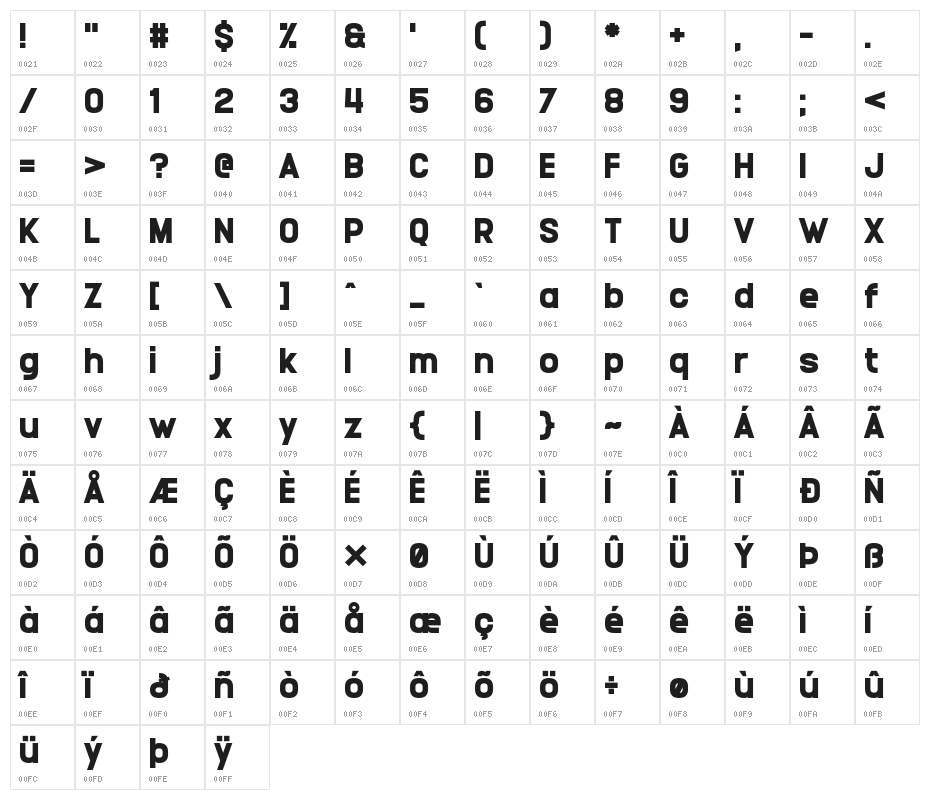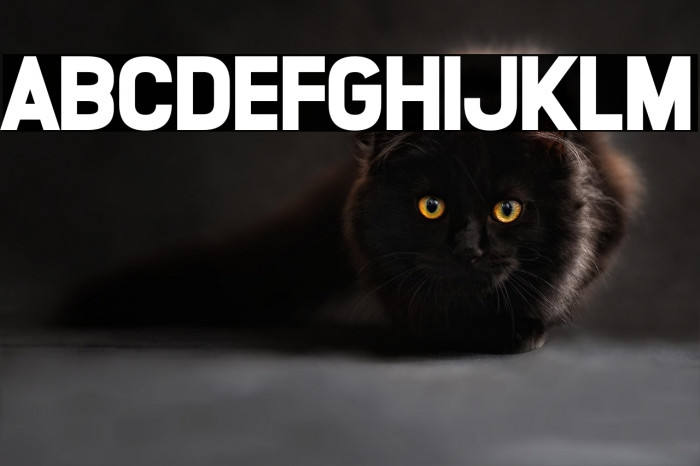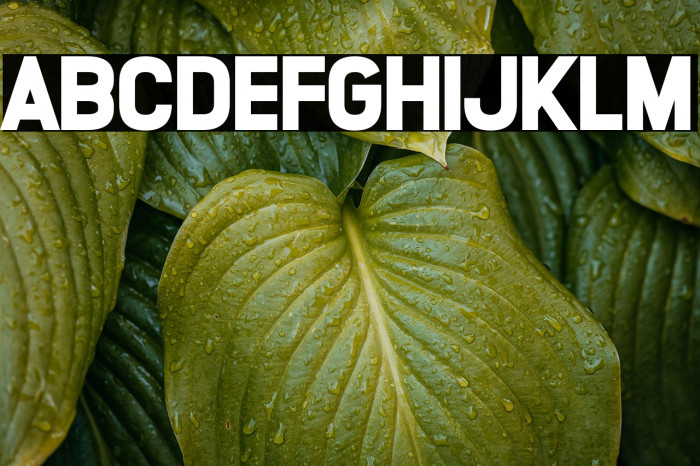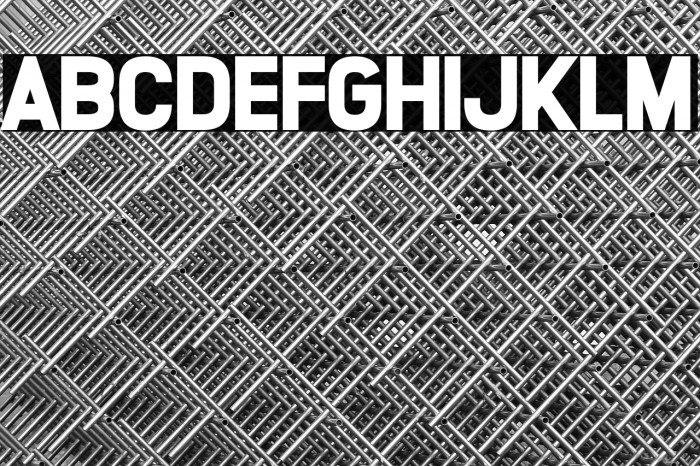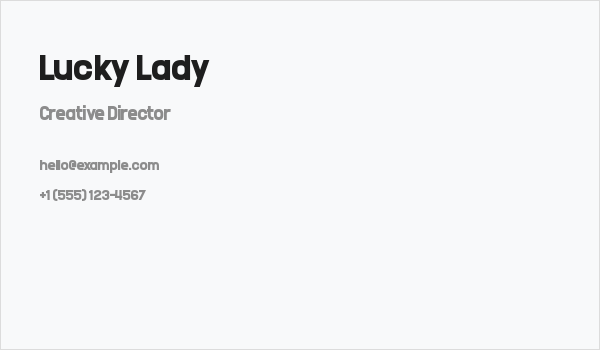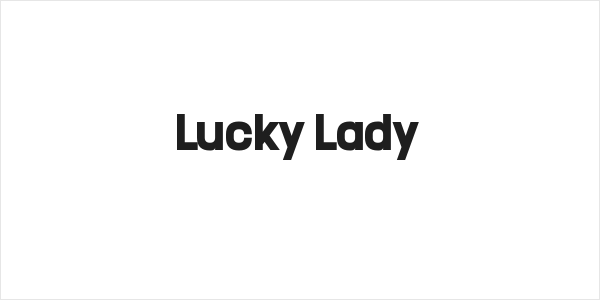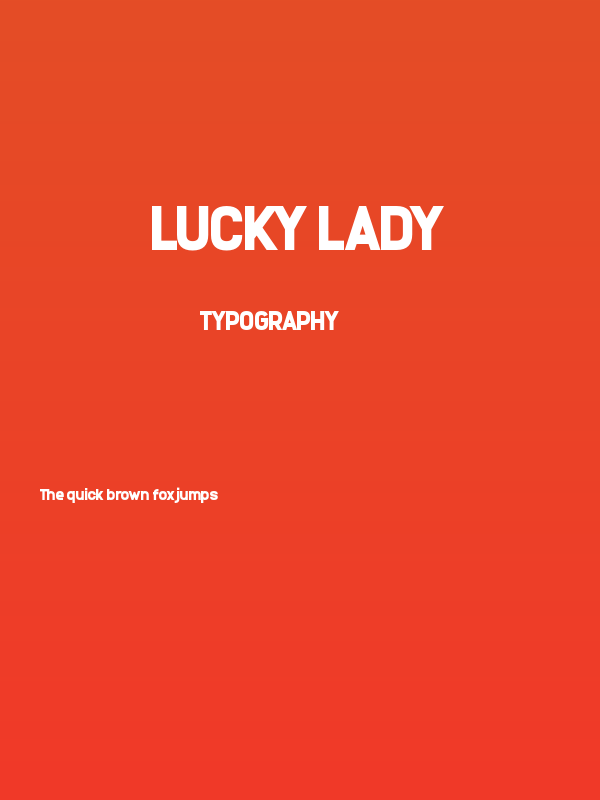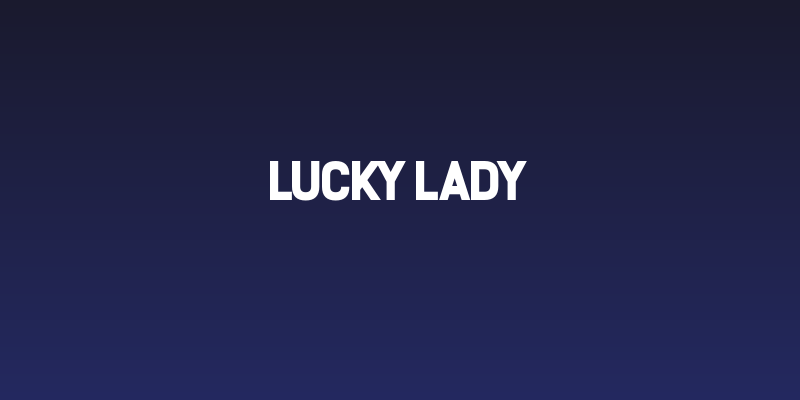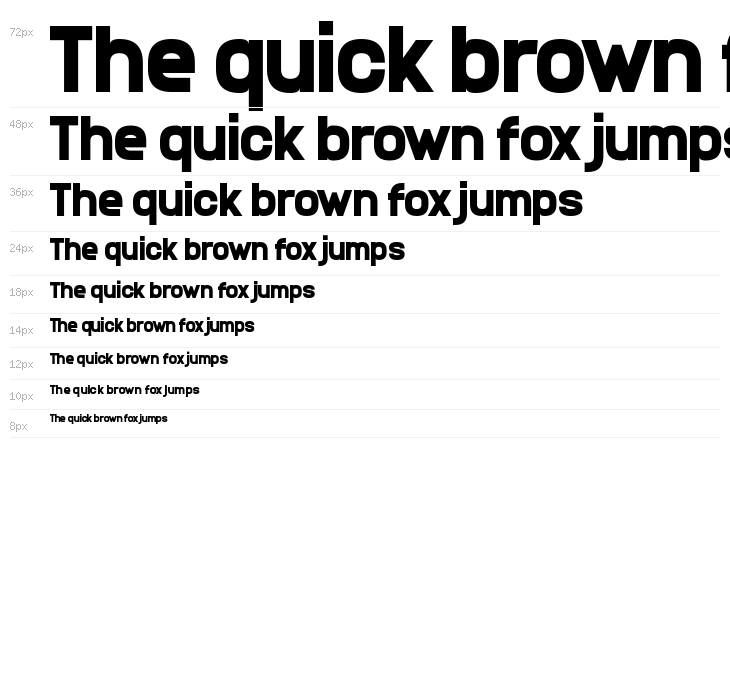
Lucky Lady Font
Lucky Lady Description
This font features bold, geometric letterforms with a strong presence. The characters are uniformly thick, giving it a robust and modern appearance. The uppercase and lowercase letters are well-proportioned, maintaining a consistent weight throughout. The numerals are clear and easy to read, matching the boldness of the alphabet. Special characters are included, each designed to complement the overall style. The font's design is straightforward yet impactful, making it suitable for a variety of applications where clarity and emphasis are needed.
| Proposed Projects | Ideal for headlines, posters, branding, and advertising where a strong visual impact is desired. |